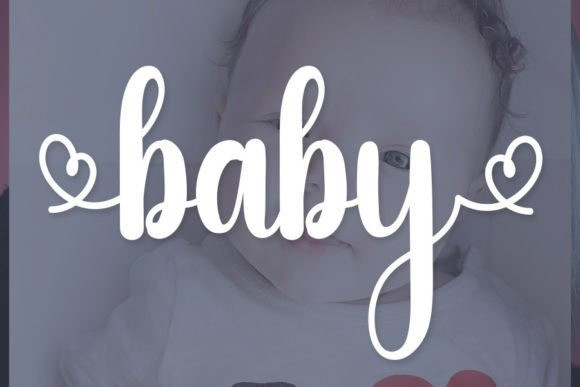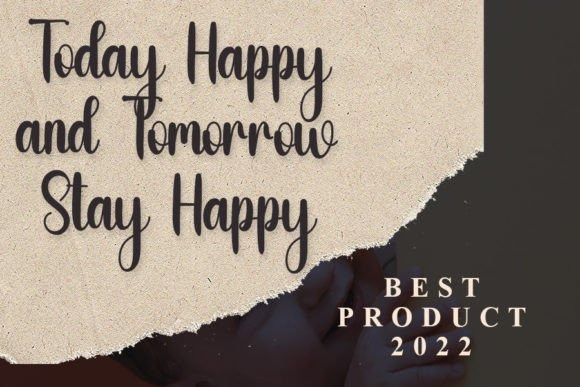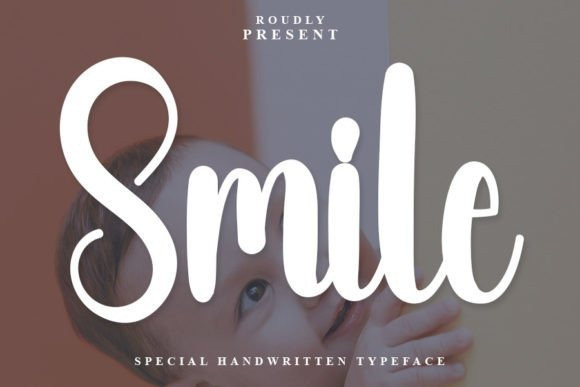
Smile Font
Smile Font is a beautiful and refined handwritten font. Classy and modern, it is perfect for logos, branding, invitations, stationery, wedding designs, social media posts, and much more!